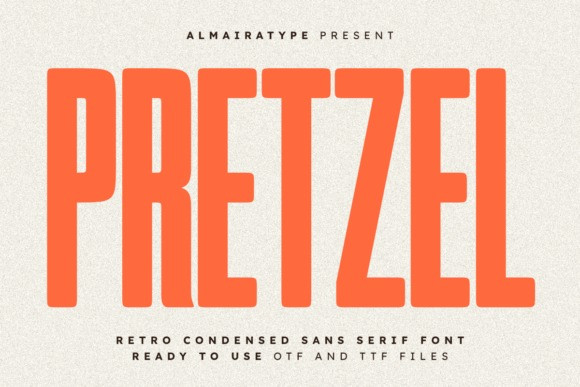
Pretzel Font
Designer: Almairatype Studio
Pretzel Font is a bold and striking retro condensed sans serif font carefully curated to bring a delightful vintage warmth to your modern creative projects. Featuring a beautifully tall, compressed structure with smooth, slightly rounded structural finishes, this typeface perfectly bridges the gap between retro nostalgia and modern clean typography. It is an exceptional choice for graphic designers, custom apparel brands, independent crafters, and Print on Demand (POD) sellers looking to craft standout merchandise. Whether you are building an identity for a trendy cafe, designing casual streetwear t-shirts, publishing editorial headlines, or curating bold social media content, Pretzel ensures high readability and an effortlessly cool, professional aesthetic. Its thick, well-balanced weight makes it an absolute favorite for craft enthusiasts utilizing vinyl cutting plotters like Cricut and Silhouette, offering clean lines that cut and weed like a dream. Expand your design toolkit and amplify your commercial brand identity with the friendly, commanding, and timeless character of the Pretzel typeface.